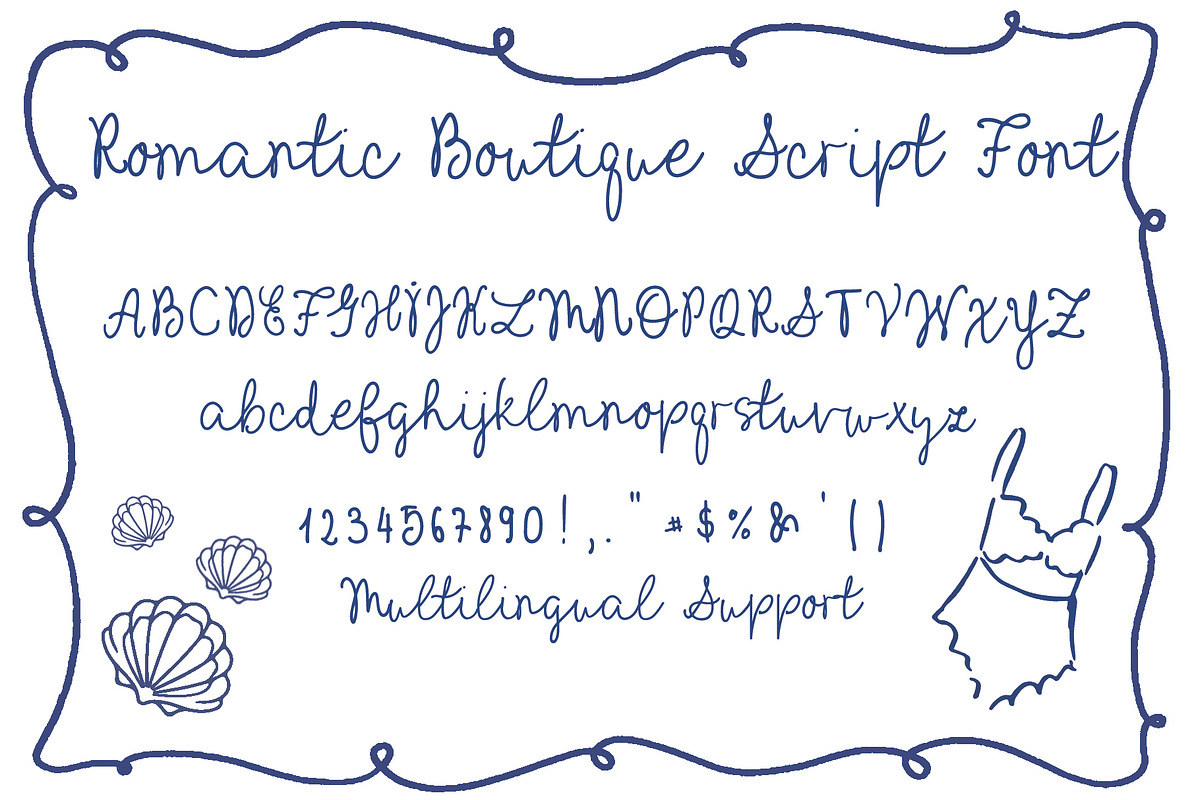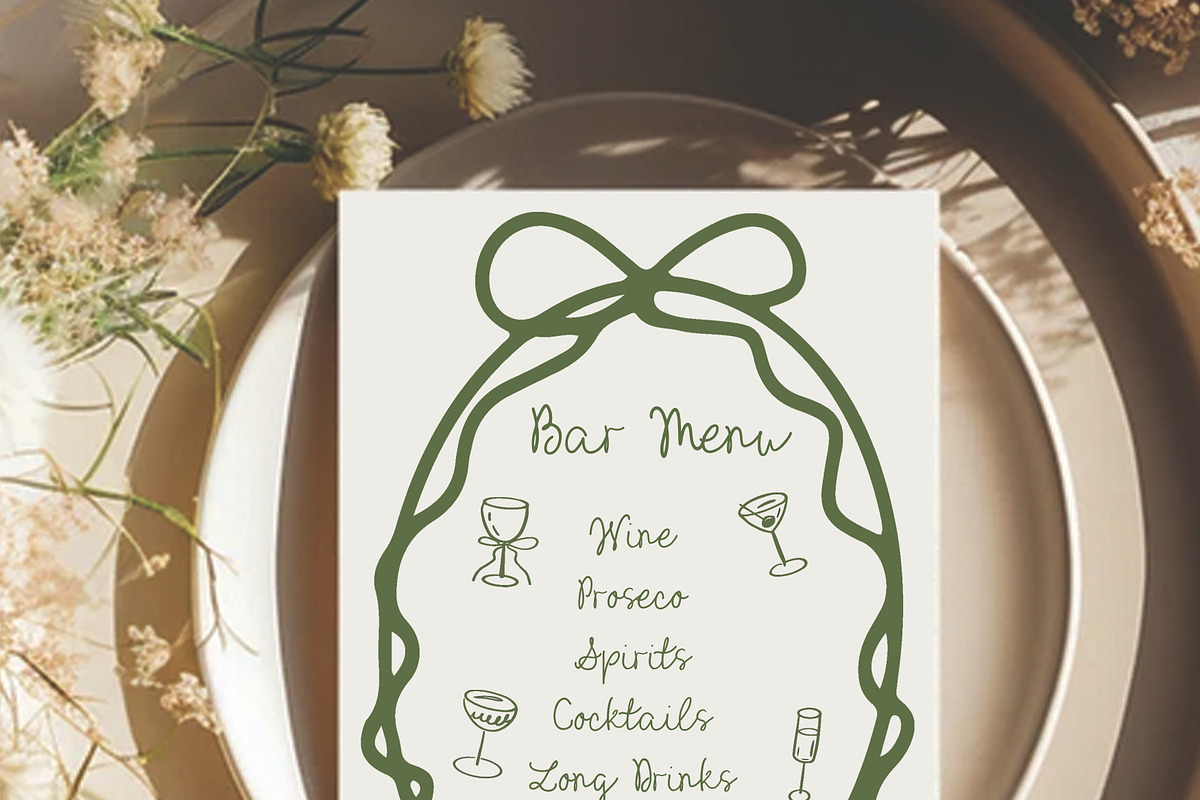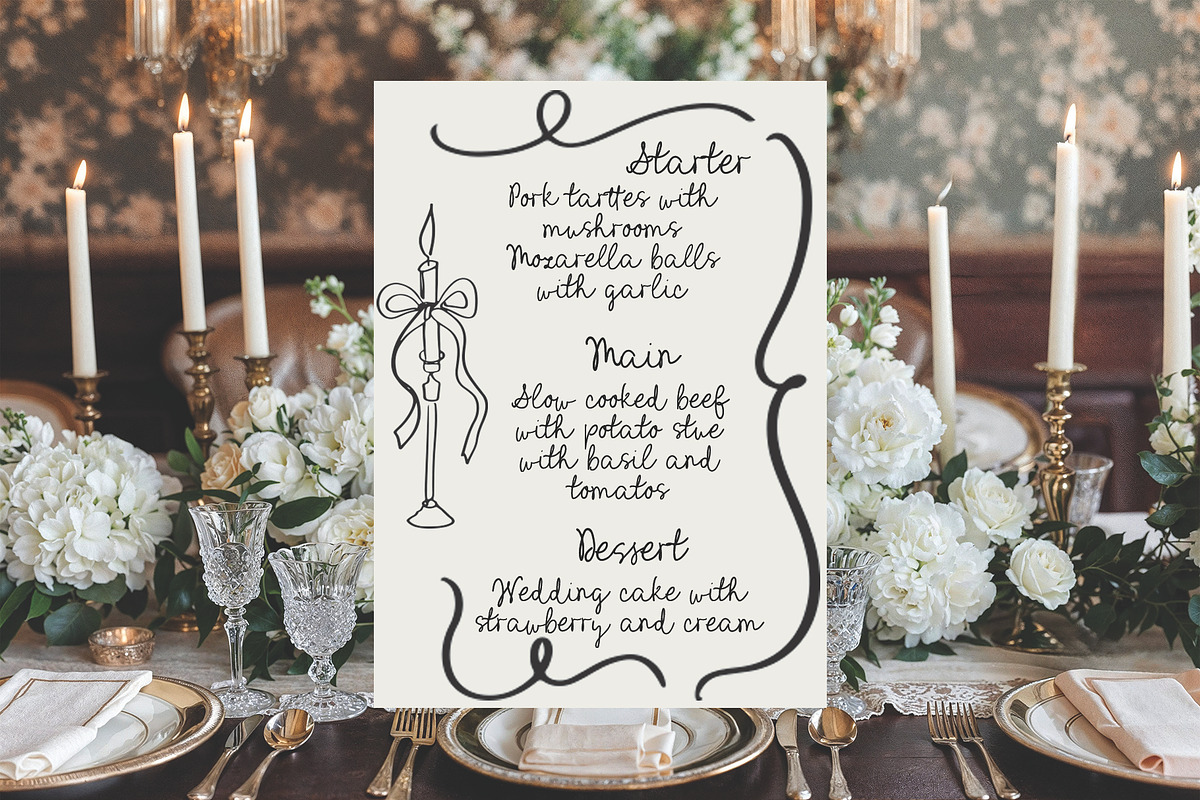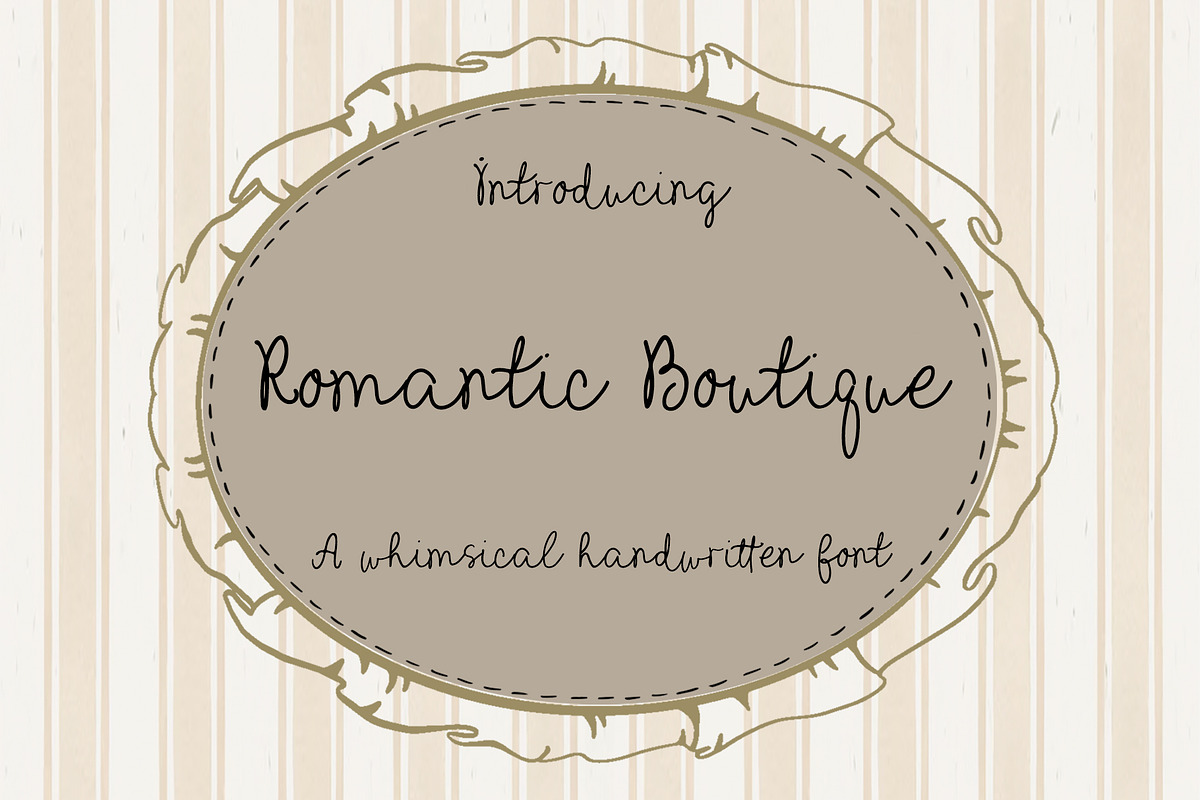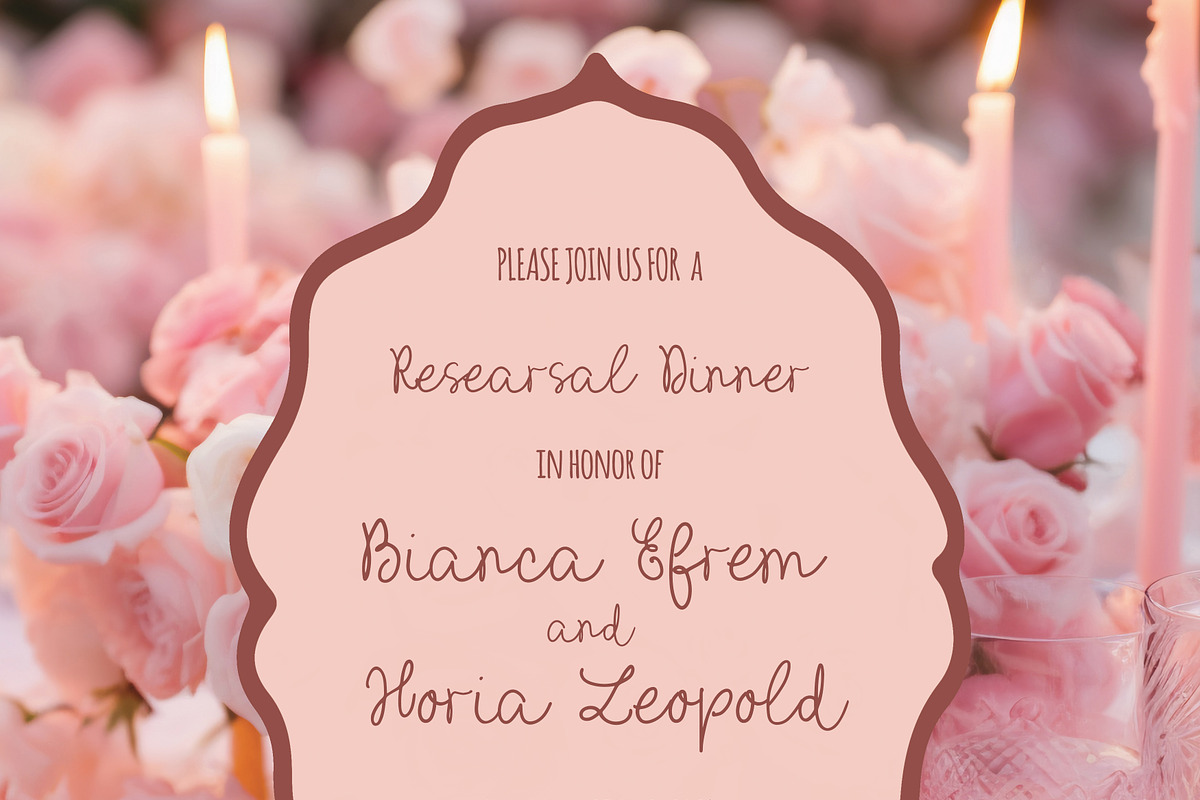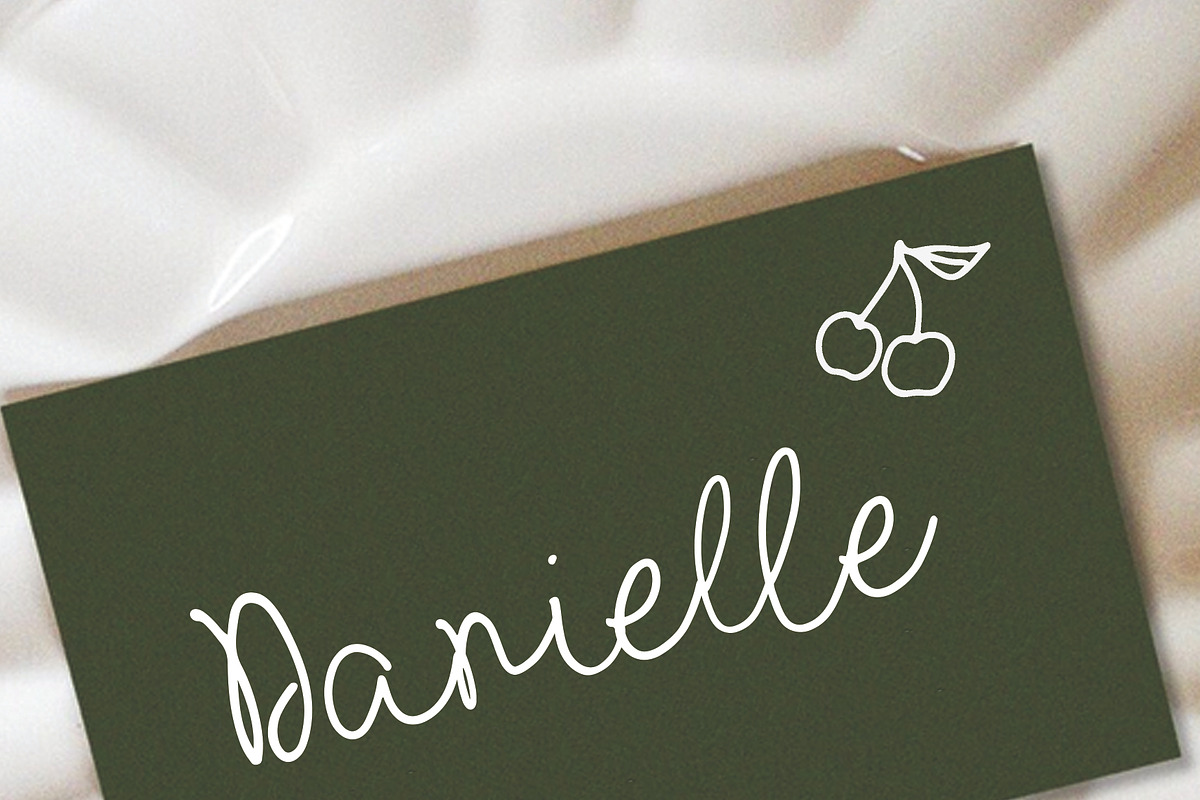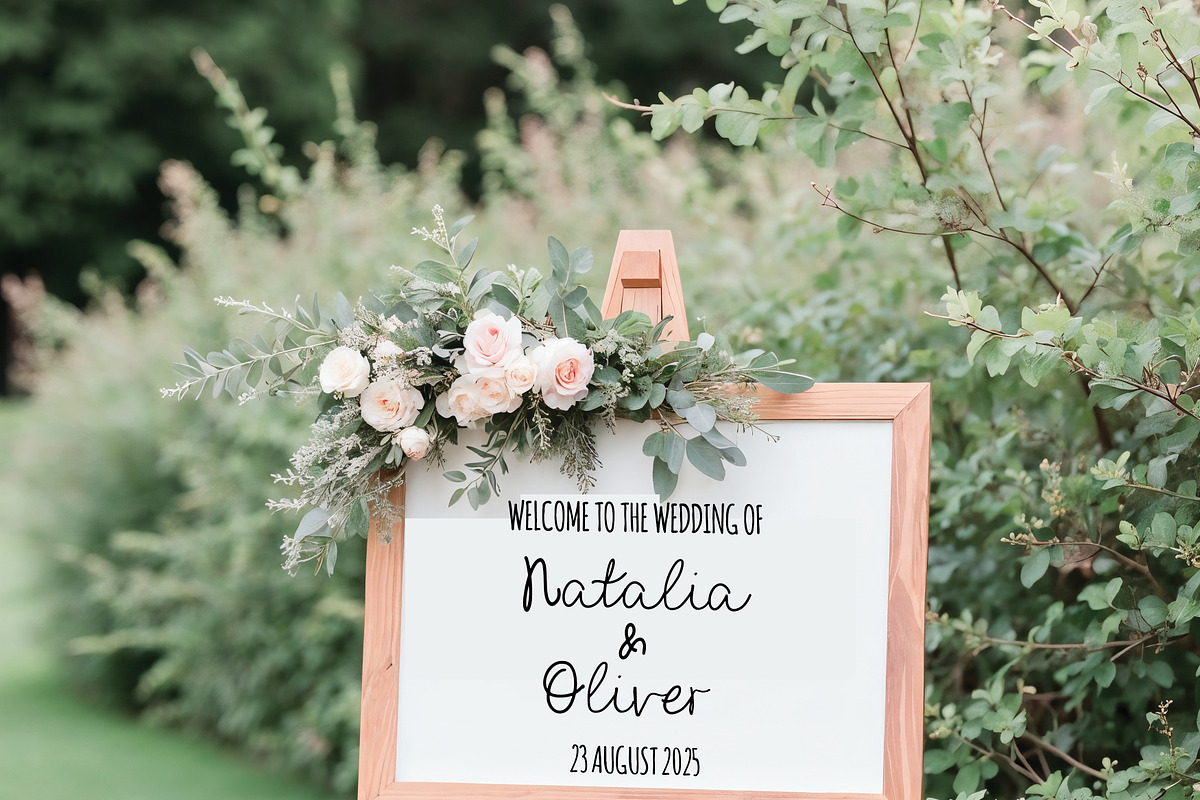
Romantic Boutique Whimsical Script
Romantic Boutique Whimsical Handwritten Font, Romantic Script Font for Wedding Invites, Menu, Fun Font, Quirky Font for Wedding Invitations, Templates
Romantic Boutique is a whimsical handwritten script font full of playful, unpolished charm. While it was crafted as the perfect typeface for wedding stationery, its soft, coquette vibe beautifully complements any romantic or creative design. The letters connect naturally with a lovely, imperfect style that feels warm, organic, and deeply human. Perfect for dreamy menus, wedding invites, and artistic projects, this font ensures every design feels personal and completely unique.
Romantic Boutique Whimsical Wedding Font includes full set of Uppercase and Lowercase Basic Characters, Numbers, Punctuation and multilingual support.